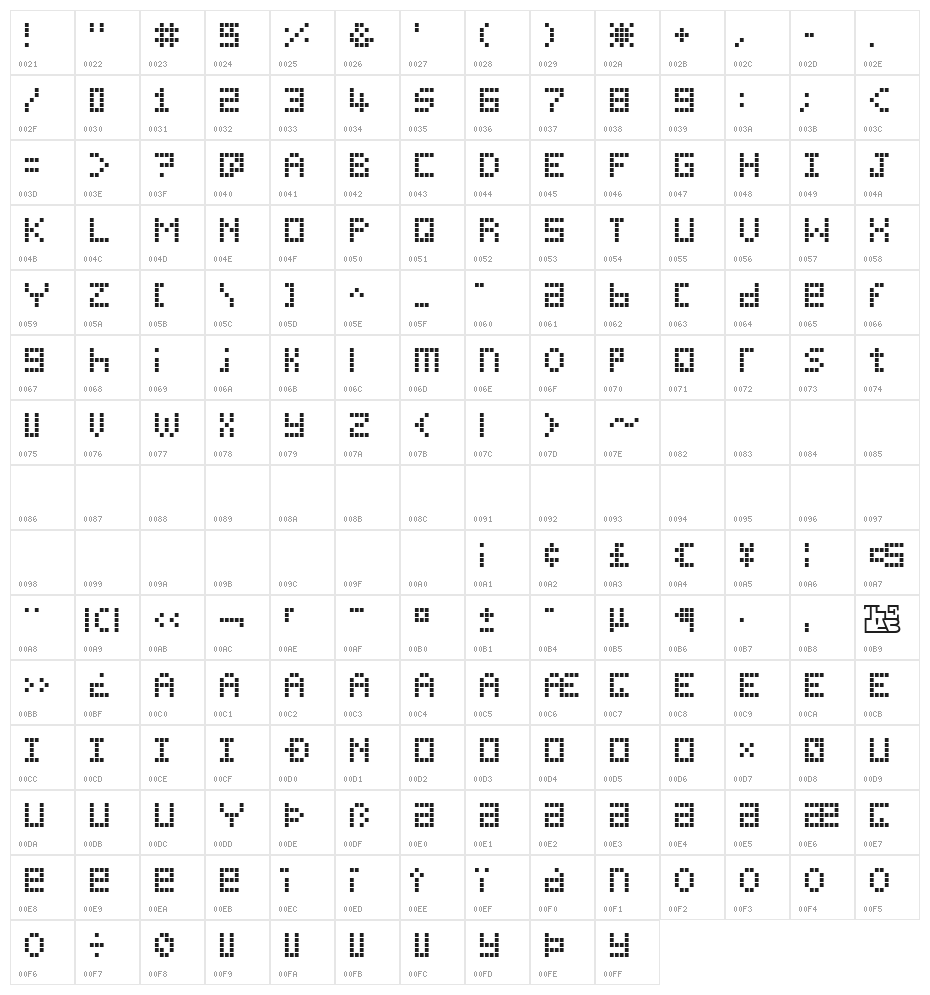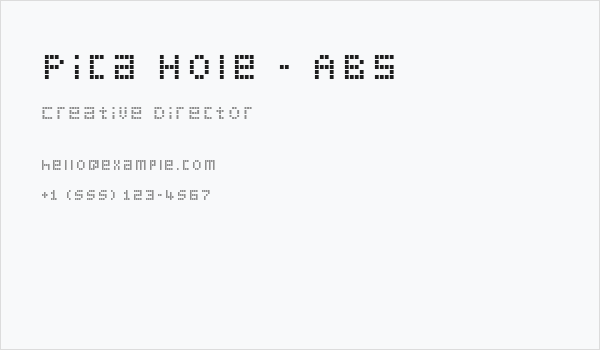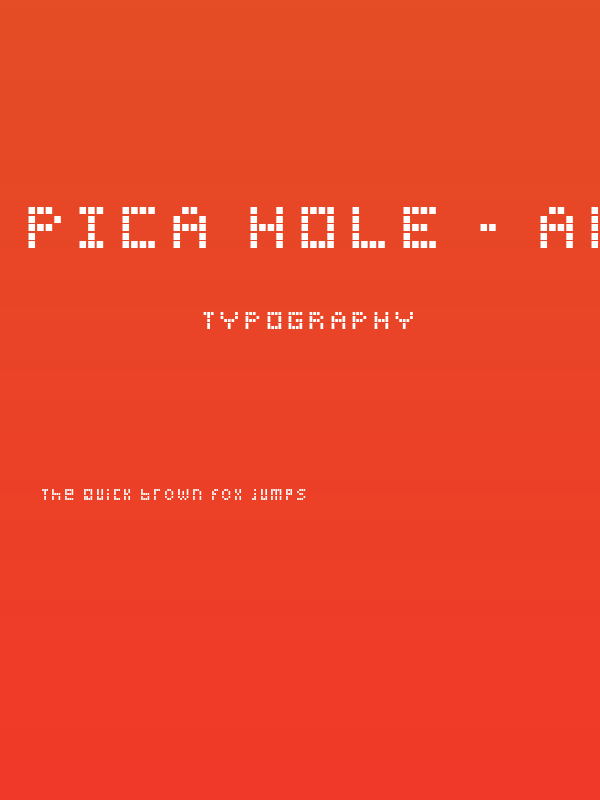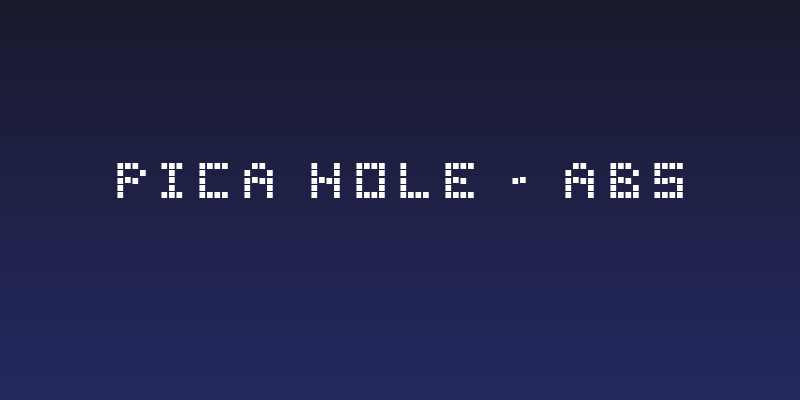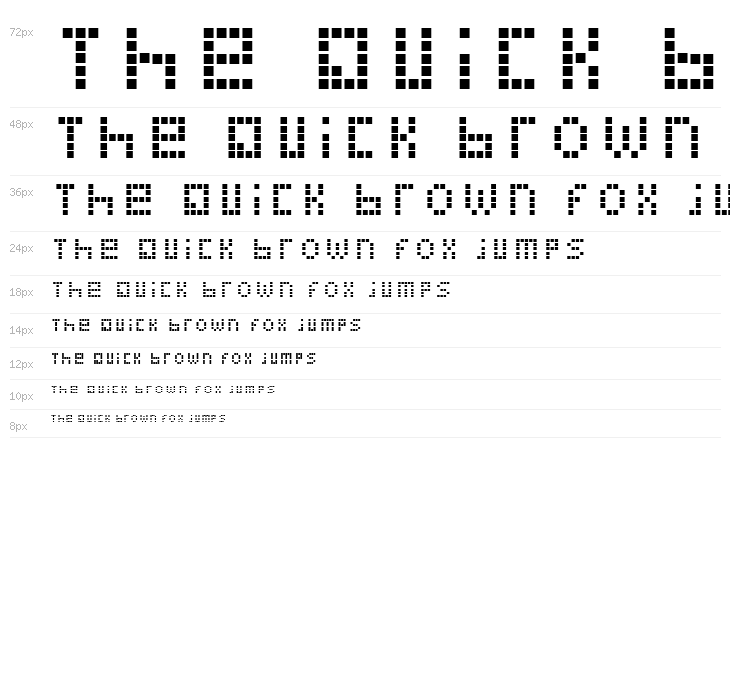
Pica Hole - ABS Font
Pica Hole - ABS Description
This font features a distinctive pixelated design, reminiscent of early digital displays and retro video games. Each character is constructed from a grid of small squares, creating a blocky, geometric appearance. The uniformity in the size and shape of these squares gives the font a consistent and cohesive look. Despite its rigid structure, the font maintains legibility and clarity, making it suitable for both uppercase and lowercase letters, as well as numbers and special characters. The playful and nostalgic aesthetic evokes a sense of vintage computing, making it ideal for projects that aim to capture a retro or tech-inspired vibe.
| Use Case | Logos, Headlines, Digital Art |
| Proposed Projects | Ideal for retro video game graphics, digital art projects, tech-themed posters, and nostalgic branding. |